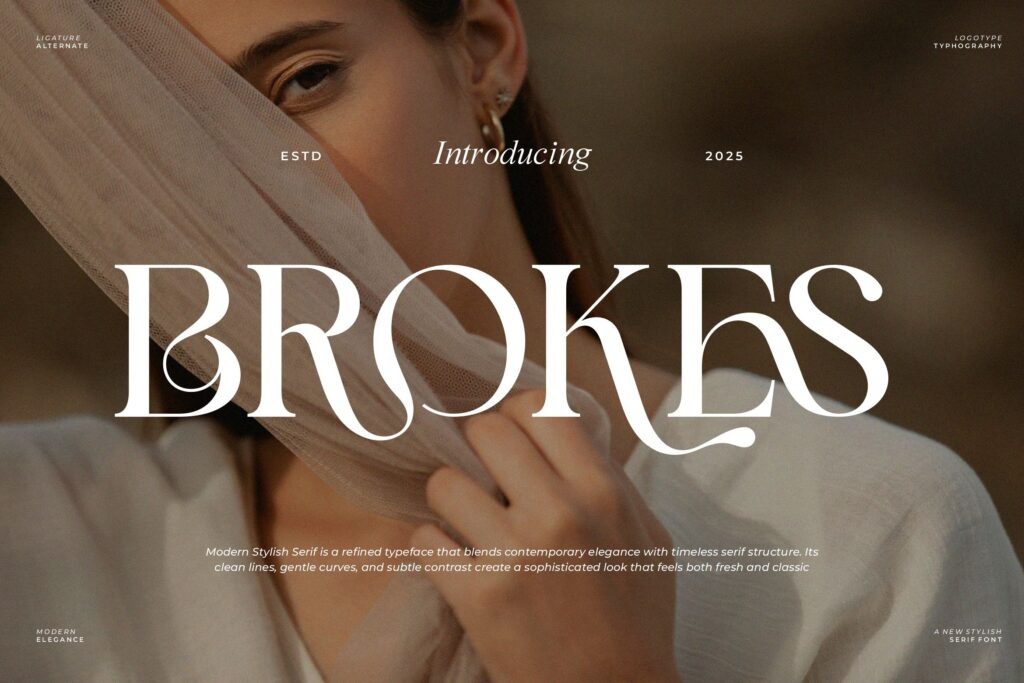
Brokes – Modern Minimalist Serif Font
Brokes – Modern Minimalist Serif Font is a premium-quality font developed to enhance your work with a polished, modern, and visually elevated look. Brokes Serif is a modern and minimalist font type for all branding and logo designs. This modern and minimalist Serif font has a beautiful character. This font is suitable for invitation card designs, cool logos, movie titles, movie names, business cards, book titles, brand names, and various other designs. Brokes Serif is a smooth serif font that exudes sophistication and the moment. Its stylish ligatures make this font a perfect partner for any project.
FEATURE :
– Ligature
– Uppercase and lowercase
– Numbering and Punctuation